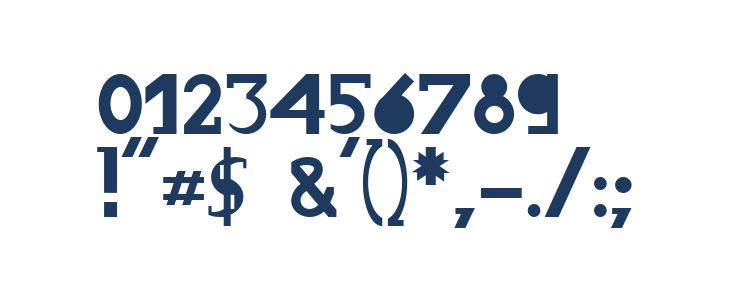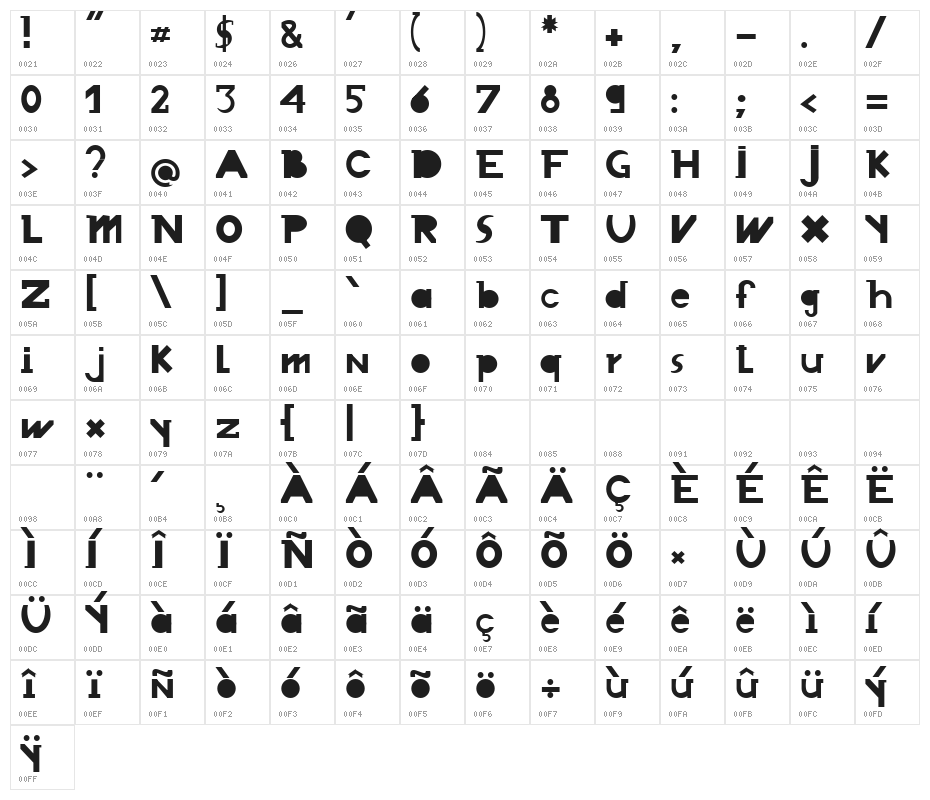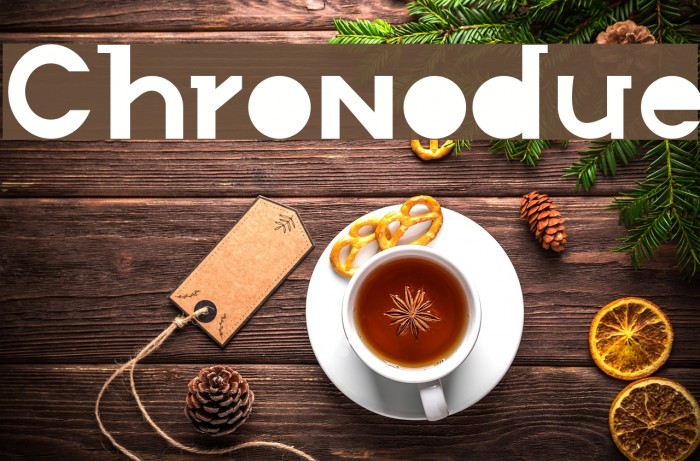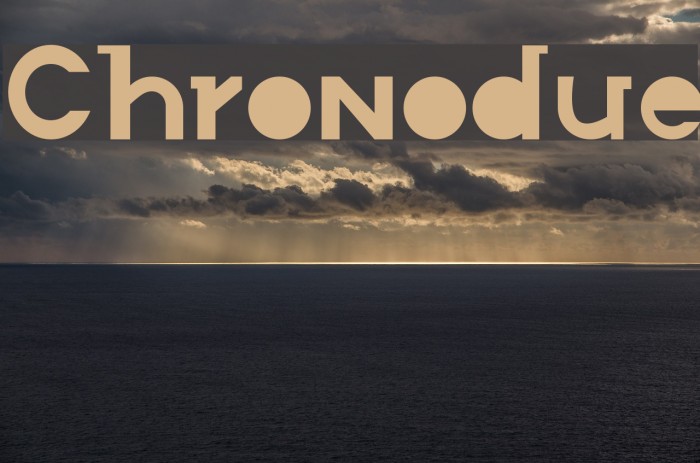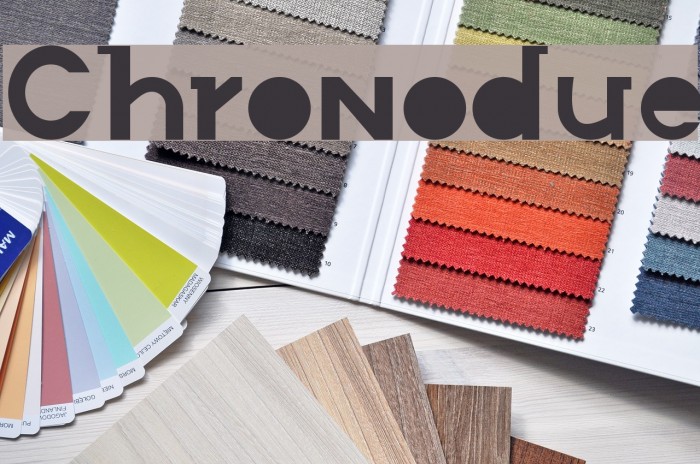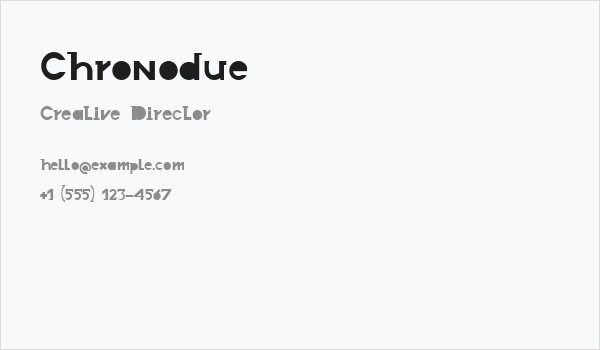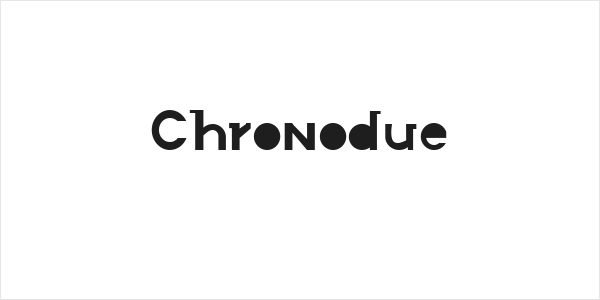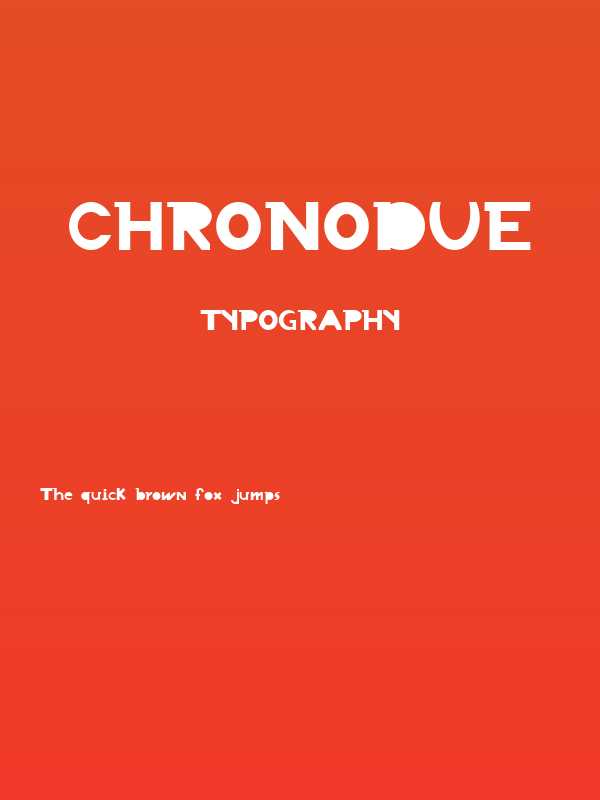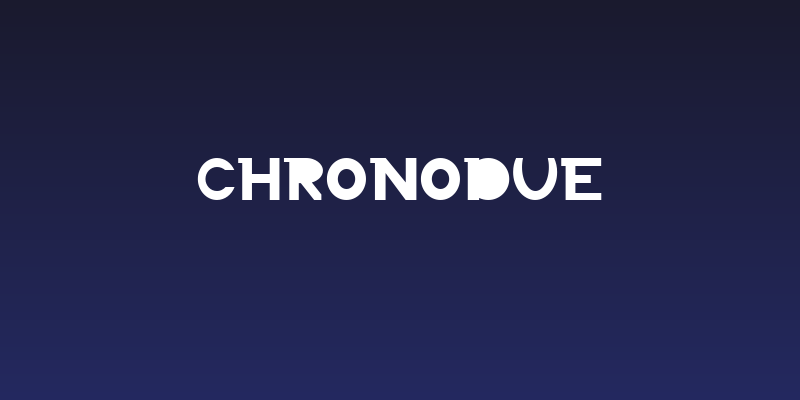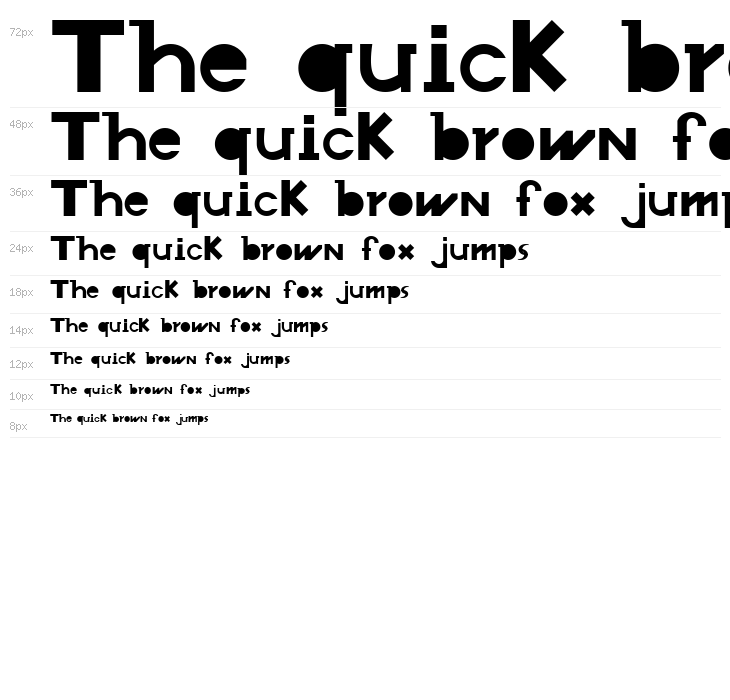
Chronodue Font
Chronodue Description
This font features a bold and geometric design with a strong presence. The uppercase letters are characterized by sharp angles and a consistent stroke width, giving them a modern and assertive appearance. The lowercase letters maintain the geometric style, with some characters featuring unique, playful curves that add a touch of personality. The numerals are bold and clear, ensuring readability. Special characters are designed to complement the overall style, maintaining the geometric and bold aesthetic. This font is ideal for making a statement with its strong visual impact.
| Proposed Projects | Ideal for branding, posters, headlines, and any project requiring a strong visual impact. |